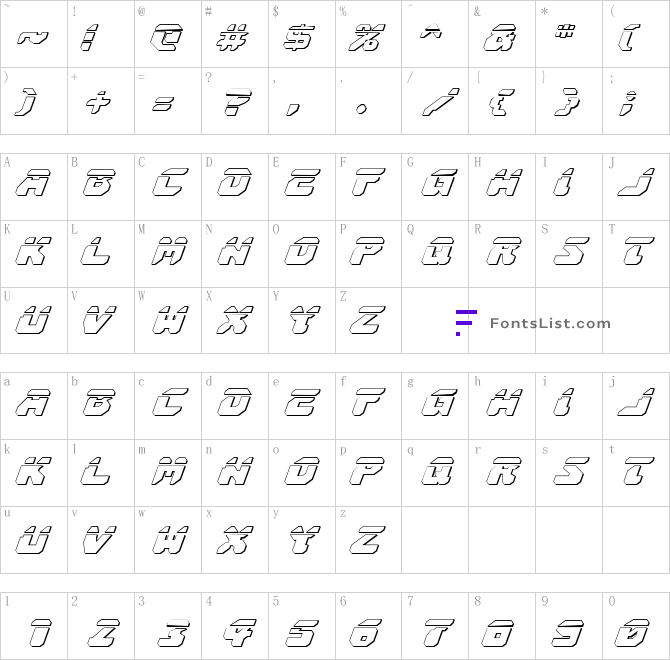
- Font Name:Astropolis Laser 3D Italic
Astropolis-Laser-3D-Italic.ttf is a very beautiful artistic font, Astropolis-Laser-3D-Italic.ttf is widely used in the design and printing of various books and pictures,Astropolis-Laser-3D-Italic.ttf has a strong visual impact,Astropolis-Laser-3D-Italic.ttf is a commonly used font in newspapers, magazines and books, and is used in posters, e-commerce Poster design, store design, logo design, font design and other fields.Astropolis-Laser-3D-Italic.